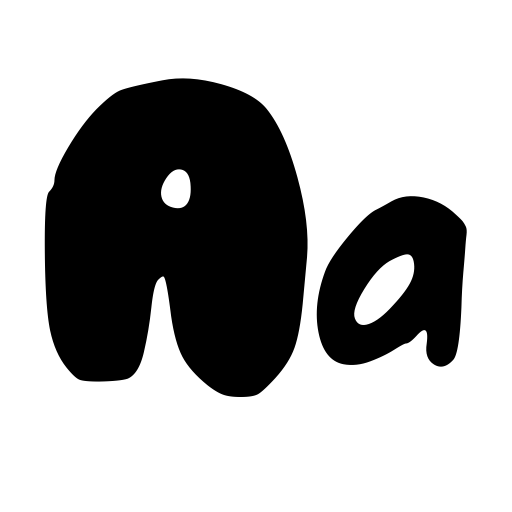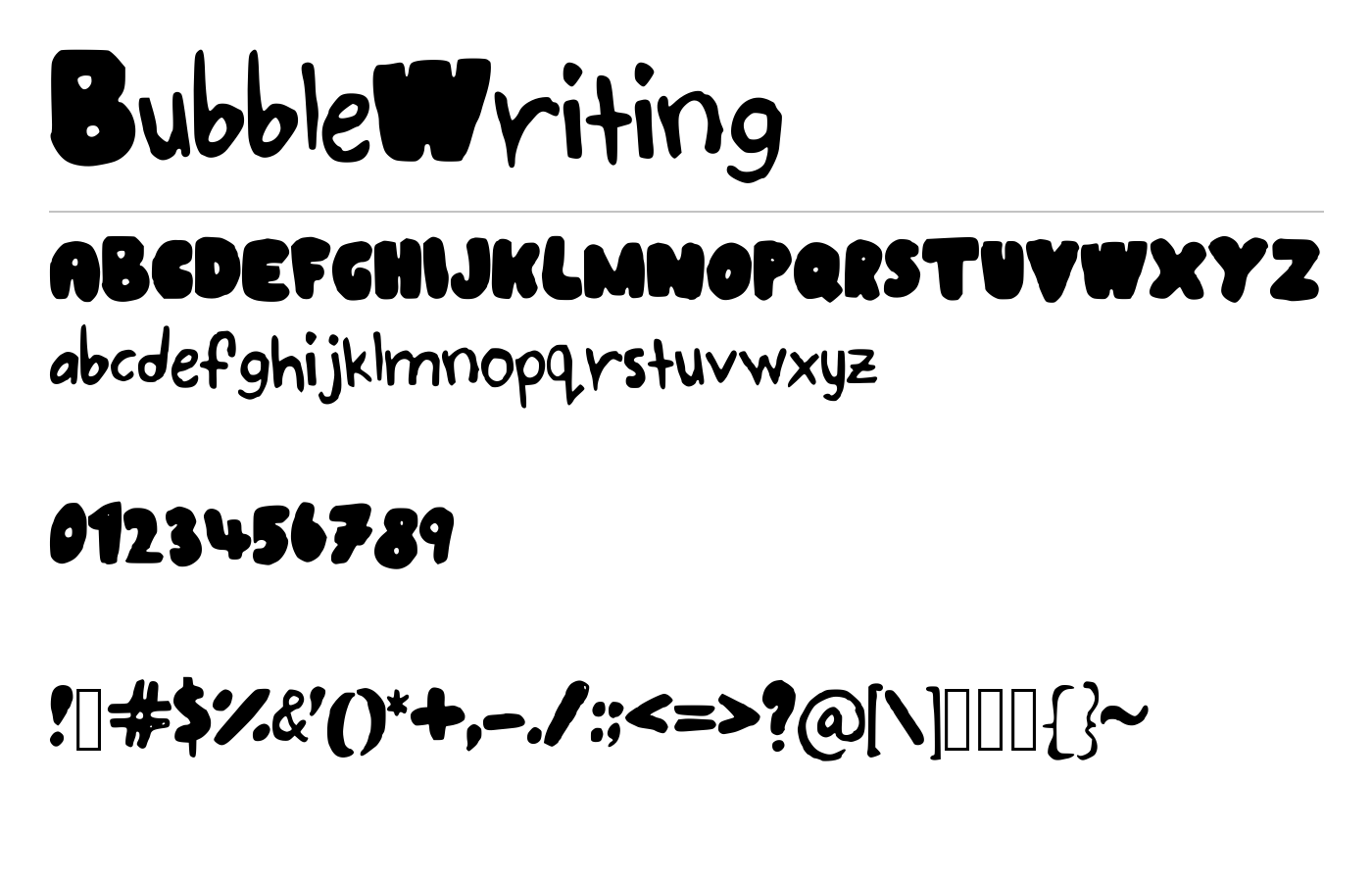
BubbleWriting Font is a playful and bold display typeface characterized by its thick, rounded uppercase letters contrasted with a whimsical, hand-drawn lowercase set. Its quirky, informal style brings a fun and approachable personality, making it ideal for children's materials, casual branding, and creative projects that want to convey friendliness and cheerfulness. This font works especially well in headlines and logos where a lively and distinctive look is desired.
BubbleWriting Font
About BubbleWriting Font